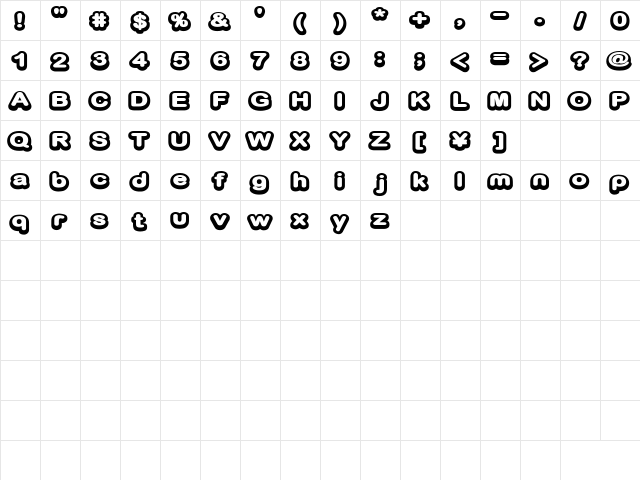
D3 Biscuitism Bold Regular
Design Context for D3 Biscuitism Bold Typeface
D3 Biscuitism Bold is a composed and adaptable typeface that performs quietly and consistently across a wide range of design contexts. Its bold stroke weight gives it real presence on the page.